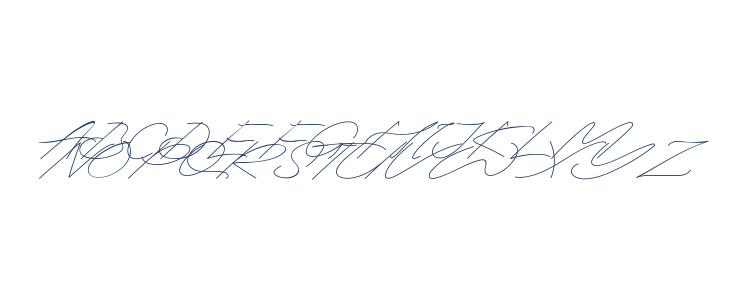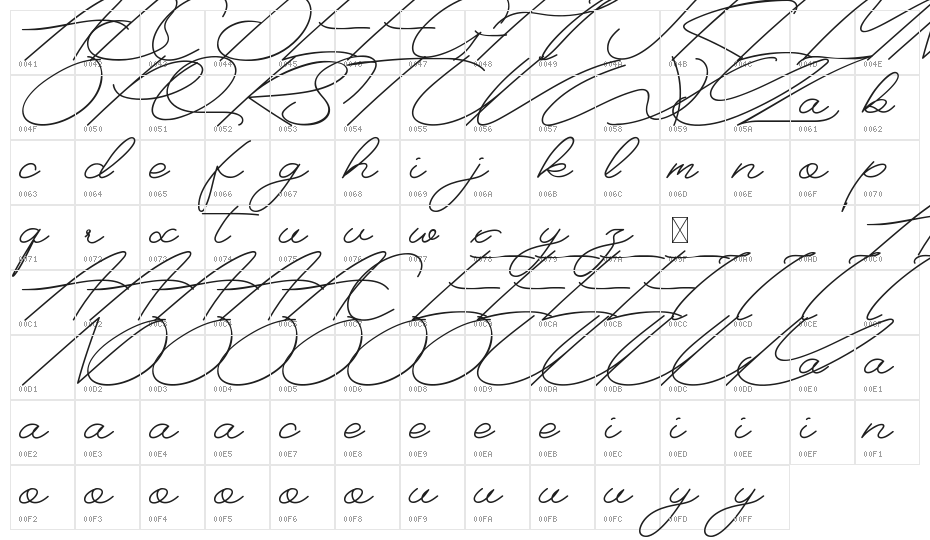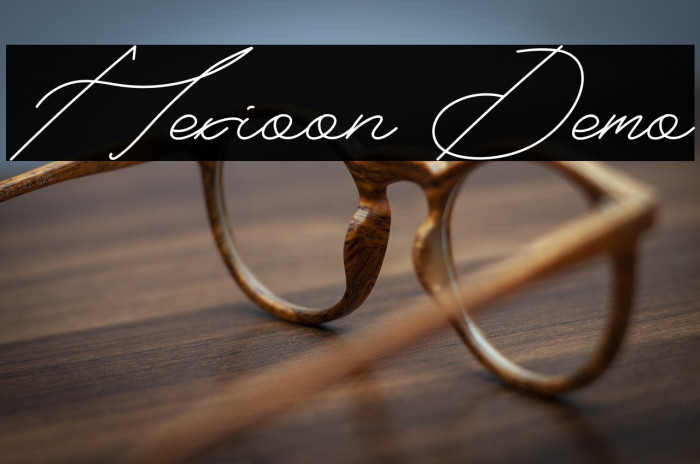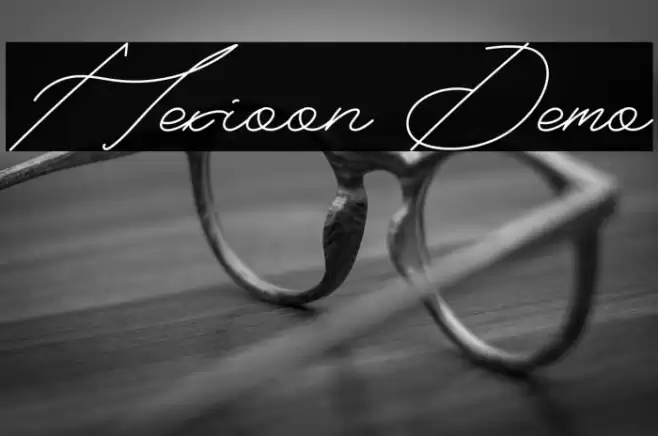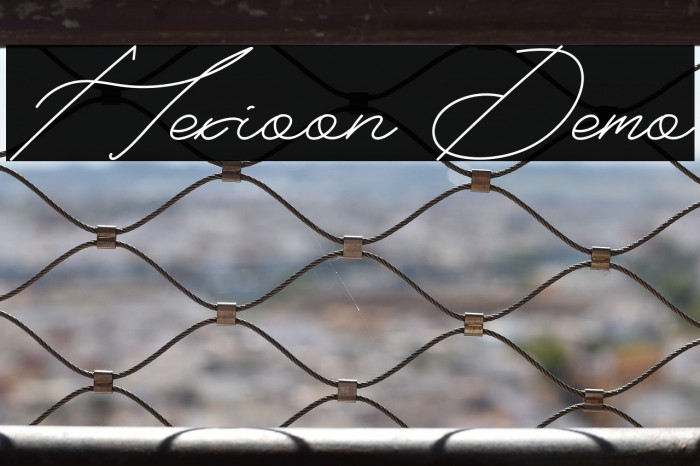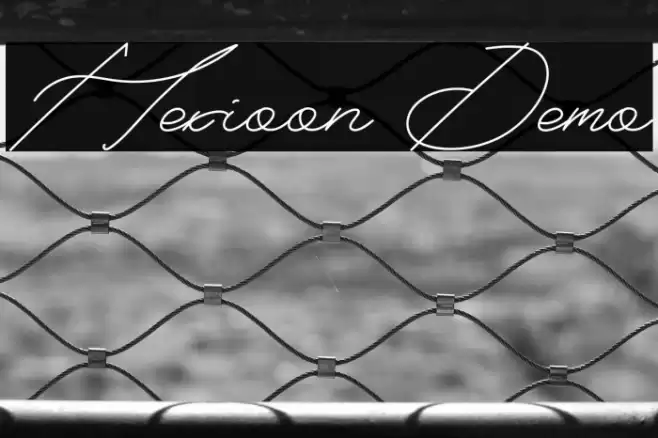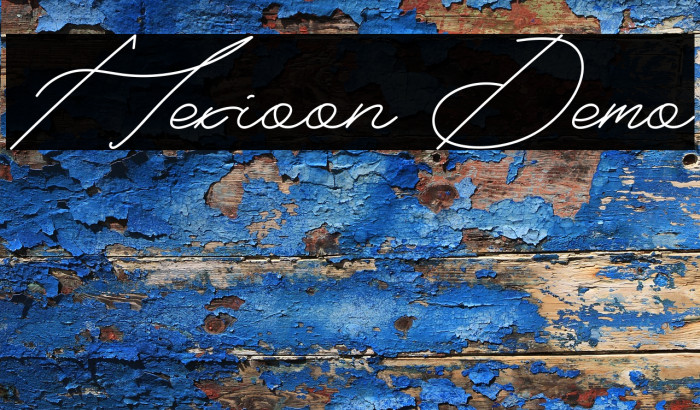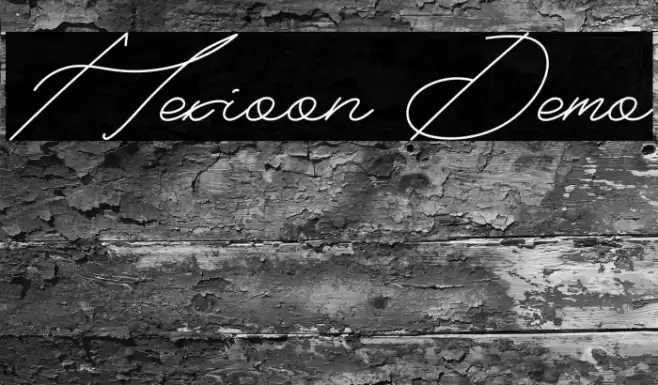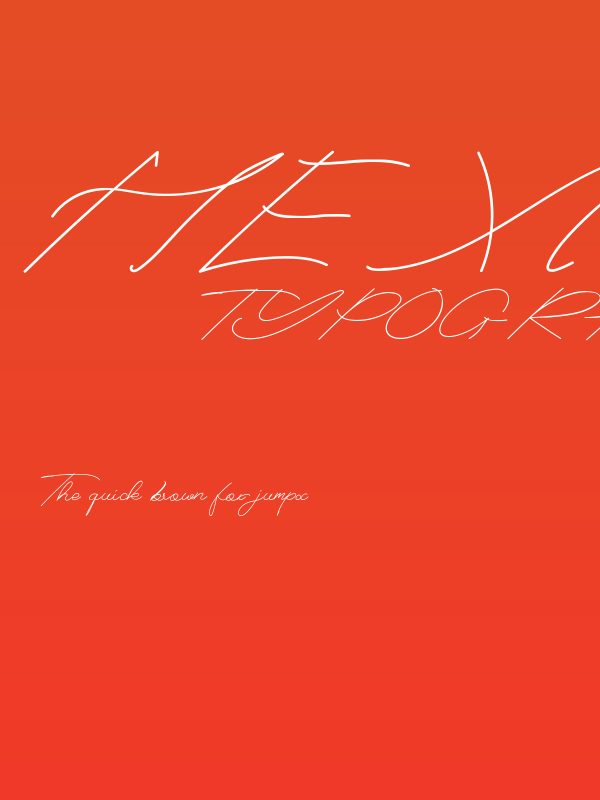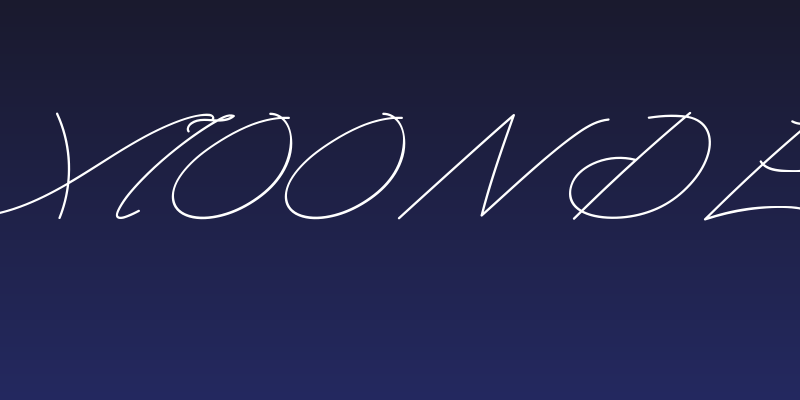
Hexioon Demo Font
Hexioon Demo Description
A cursive, handwritten script font with elegant, flowing lines and a smooth, continuous stroke style.
| Overall Style | Elegant, Personal, Script |
| Use Case | Headlines, Invitations, Personal branding, Logos |